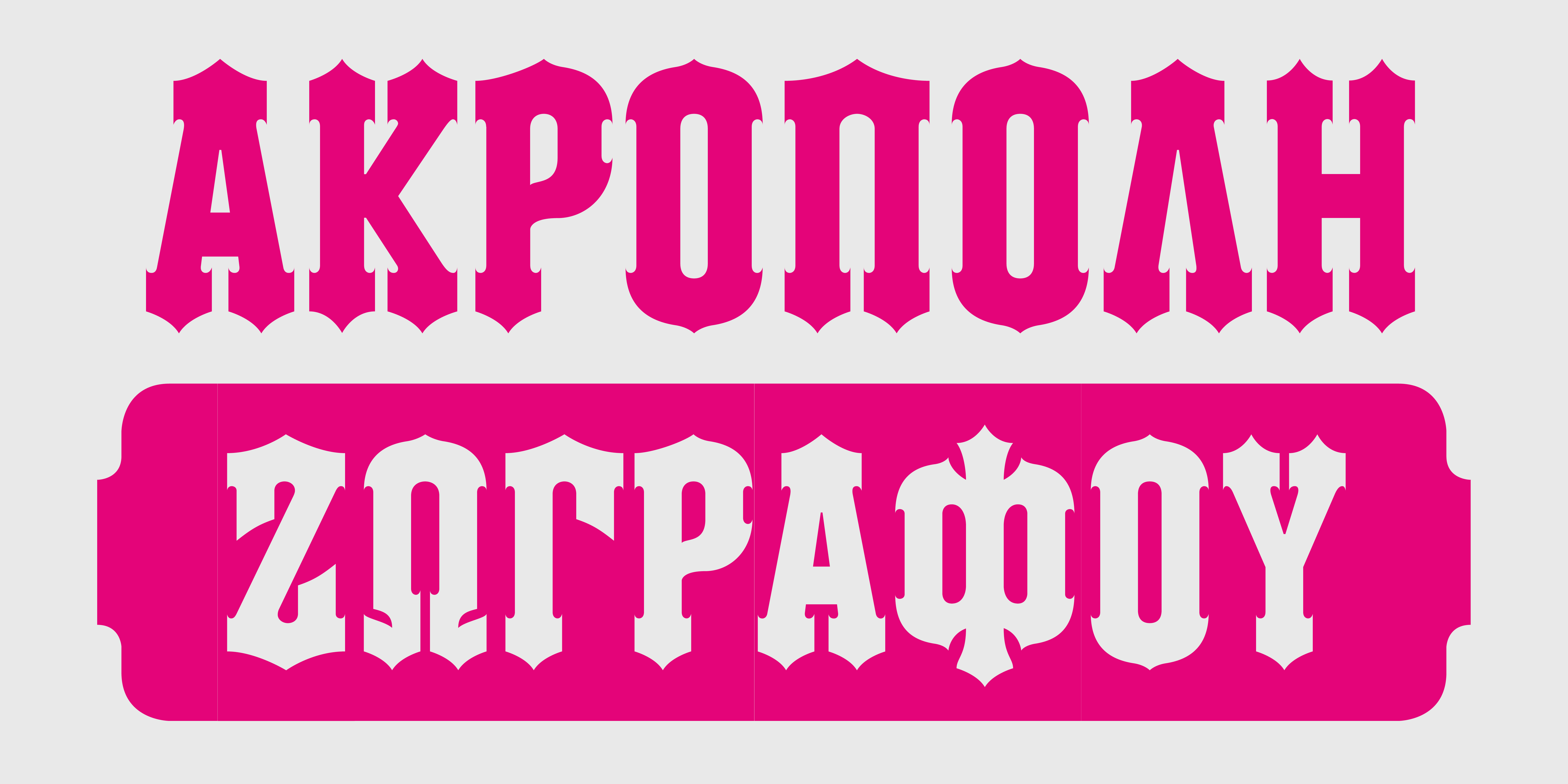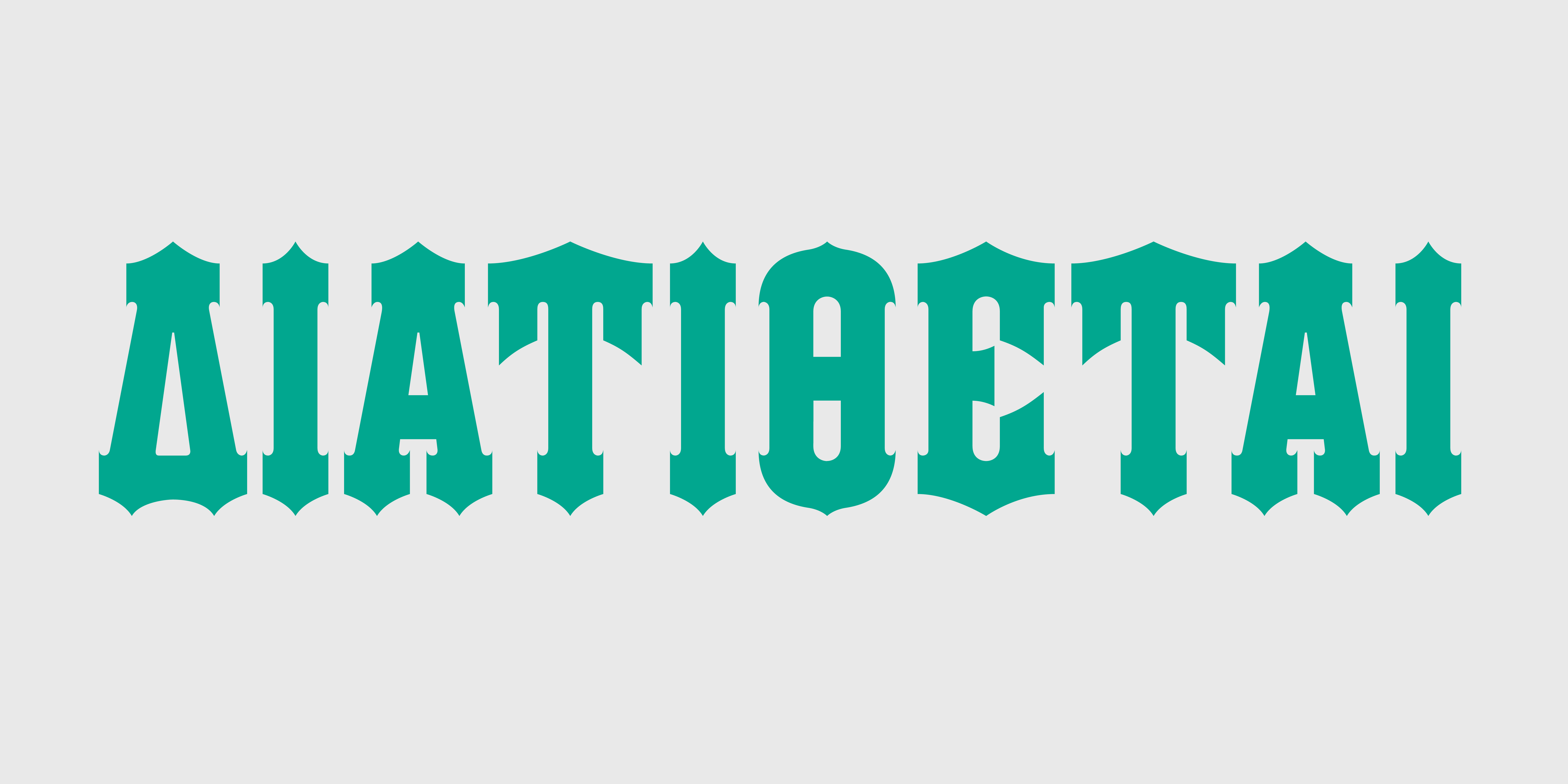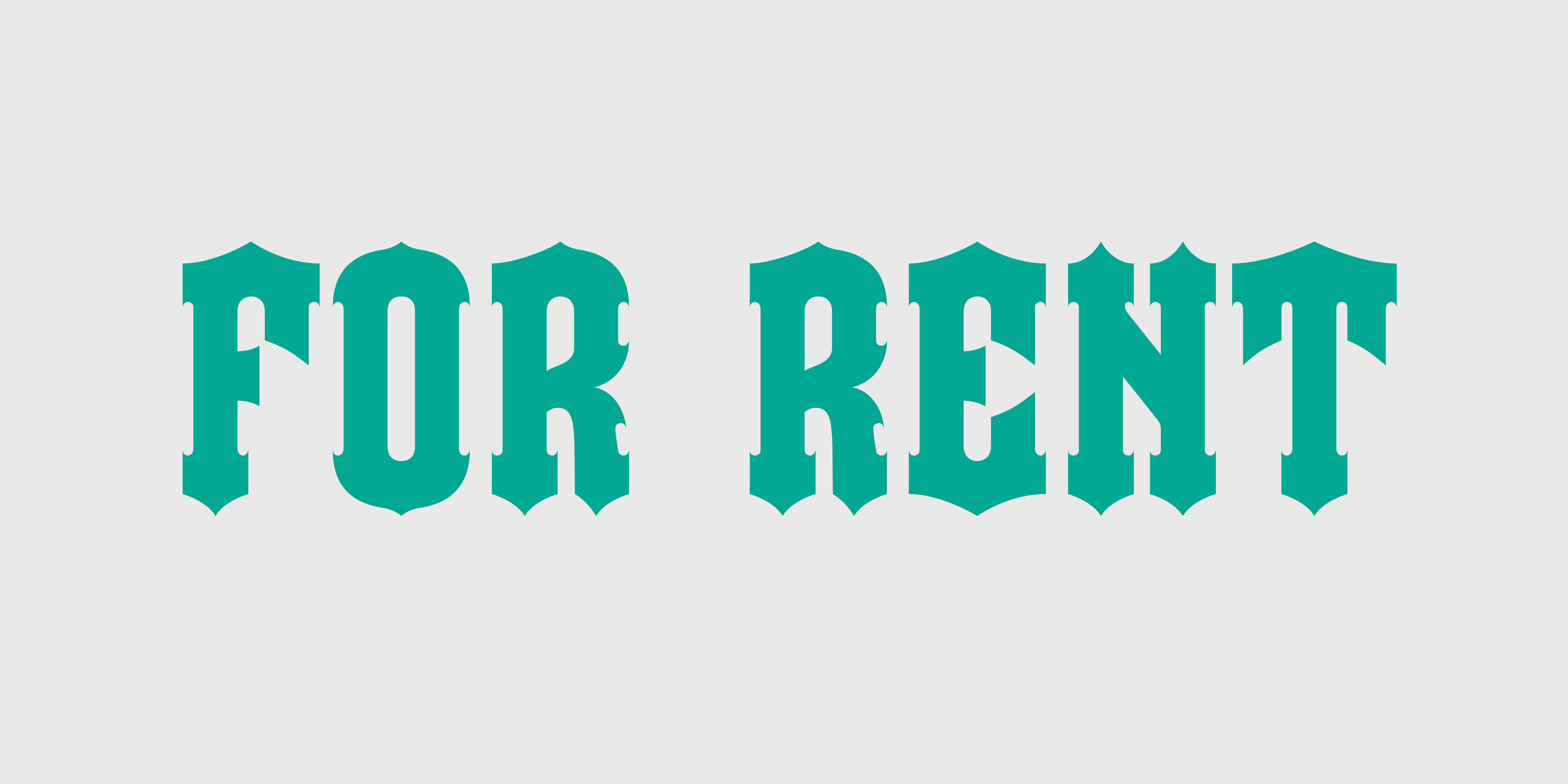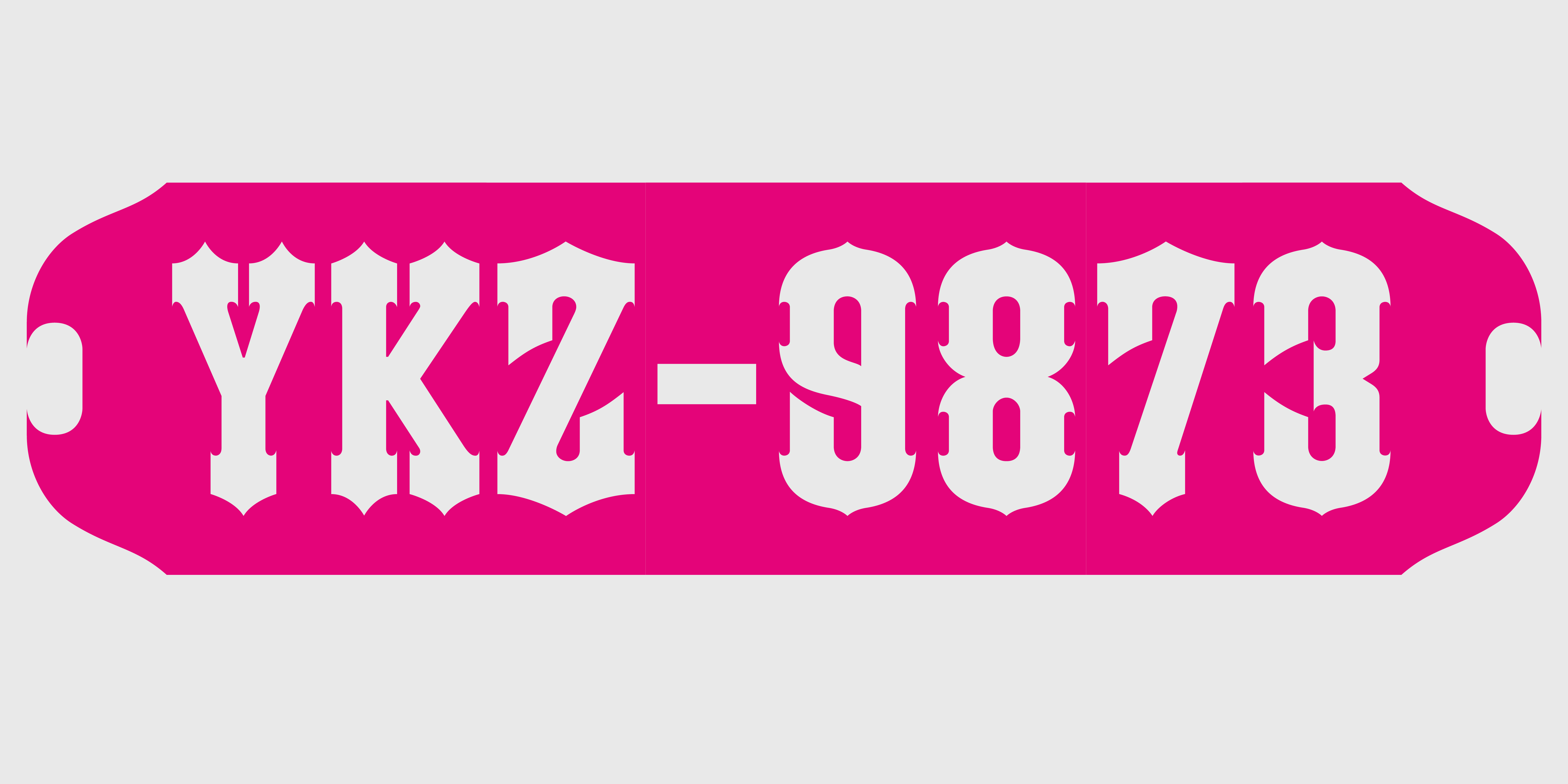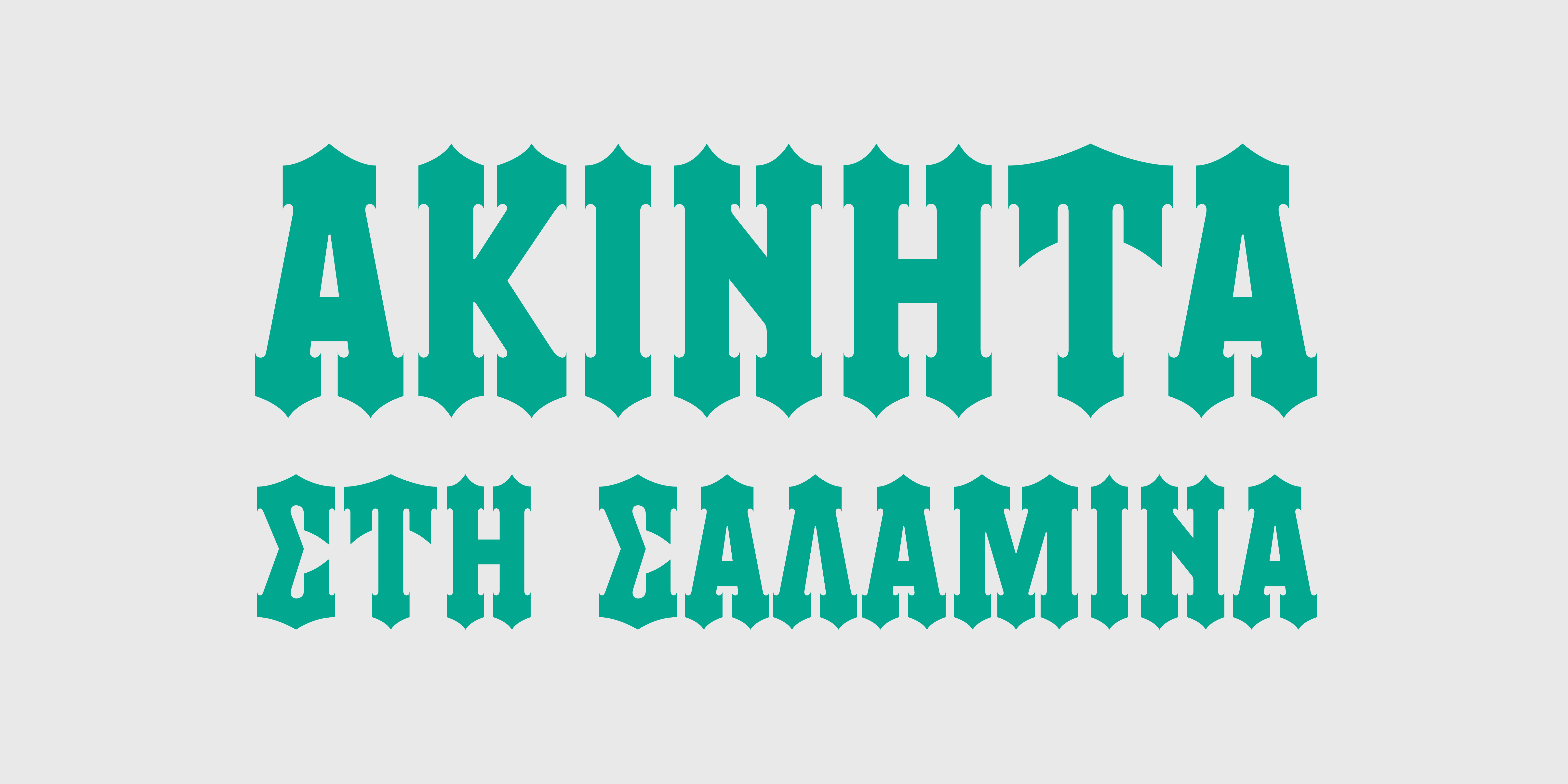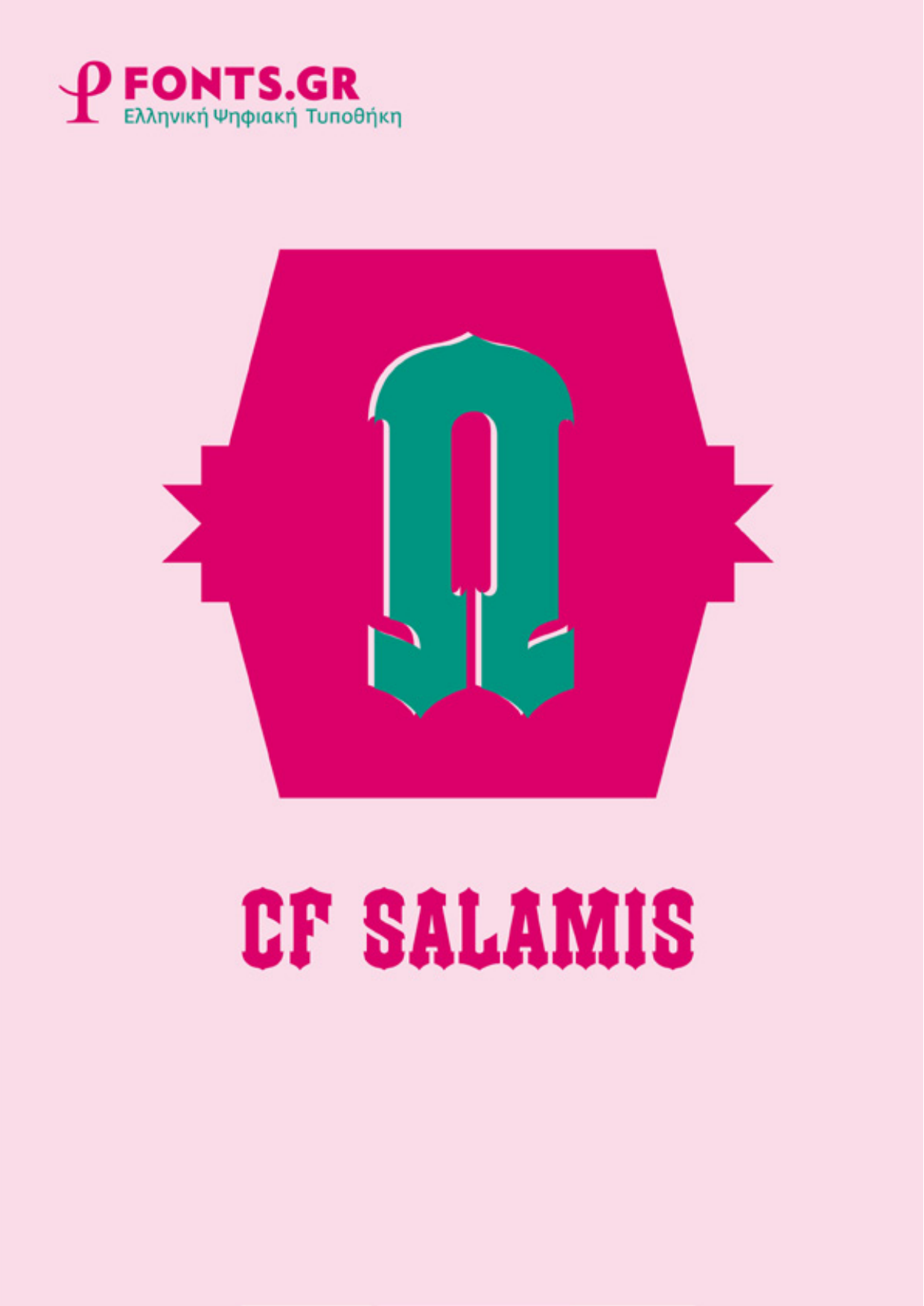
Salamis
CF Salamis is an uppercase display font based on the iconic woodtypes used on the "for rent" and "for sale" ads in Greece. The types relate to the Tuscan Pointed woodtype style and are a unique greek version of this kind. CF Salamis comes in two versions, regular and reversed, which also contains a set of decorative endpoint ornaments.